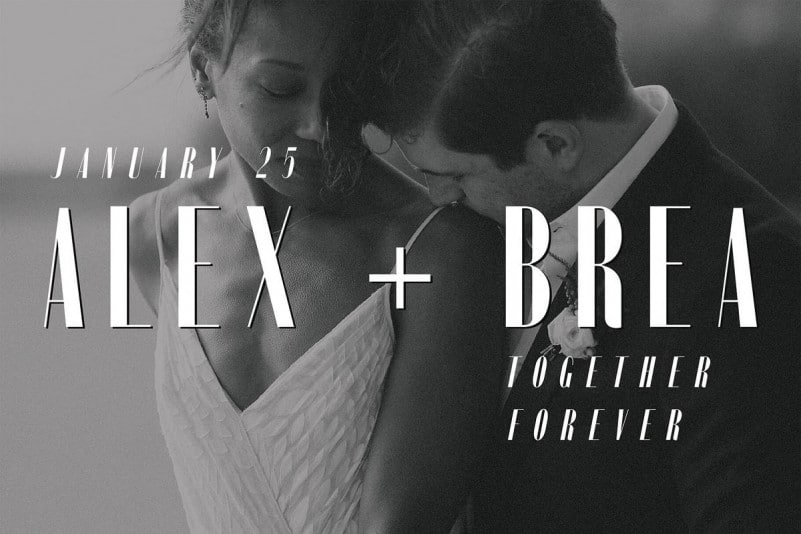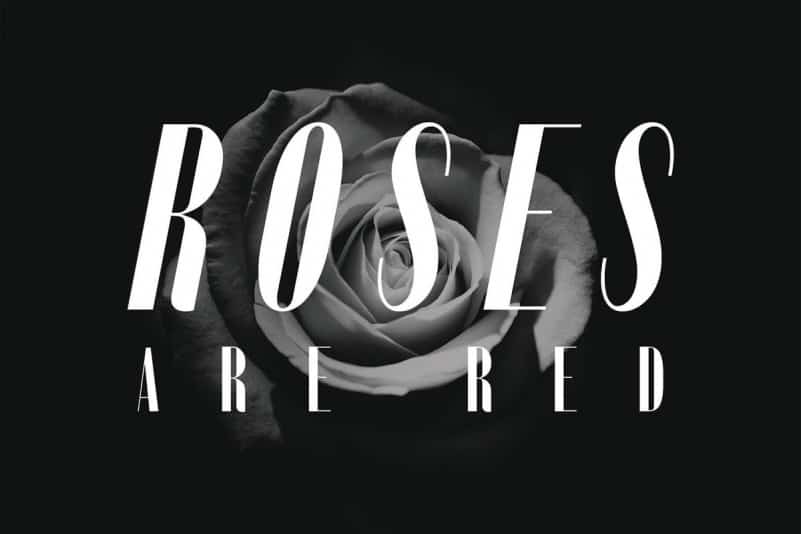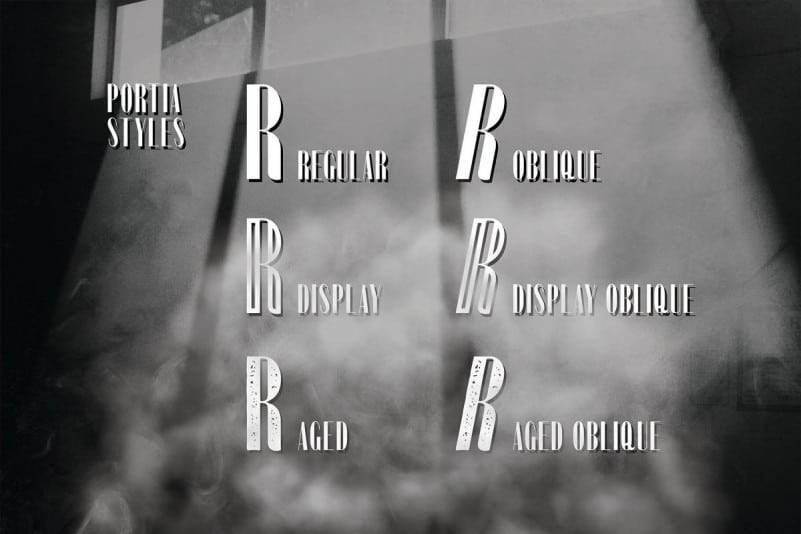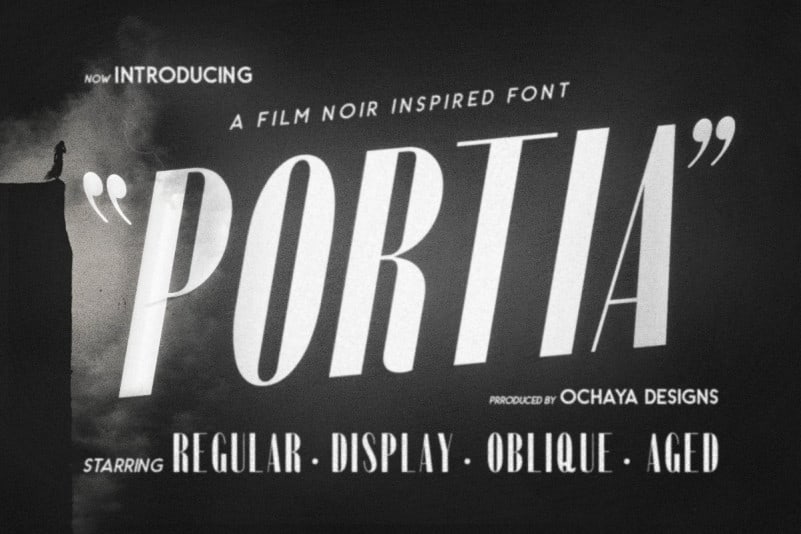
Portia Display Font
Portia Font is an incredibly Unique and Interesting sans serif display font that is absolutely great for your next creative project. Made from font designer named ochaya designs. This typeface is a tall contemporary typeface inspired by the film noir genre. It is a versatile, easy-to-use font and a great addition to any font collection. It is best used for branding, print design, title headings & so much more.